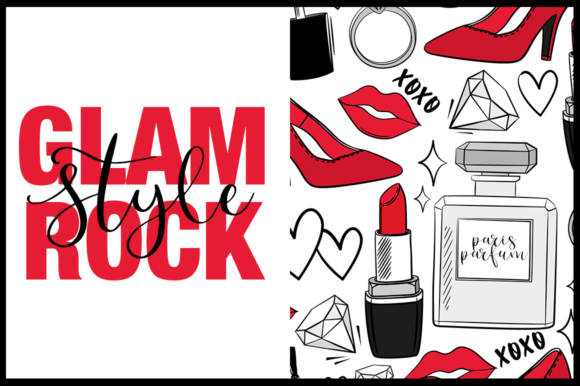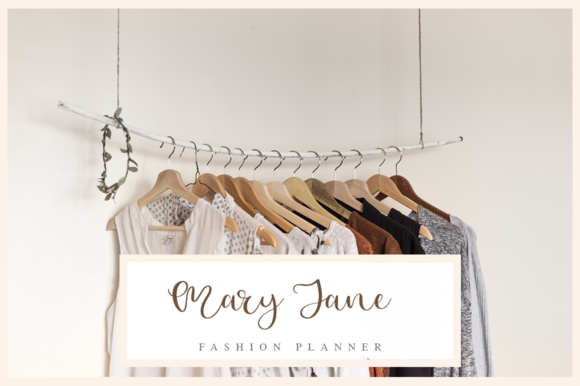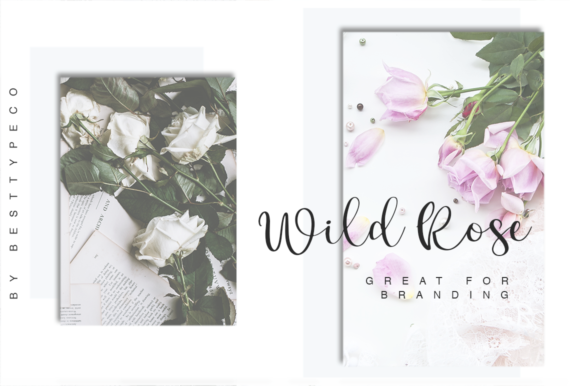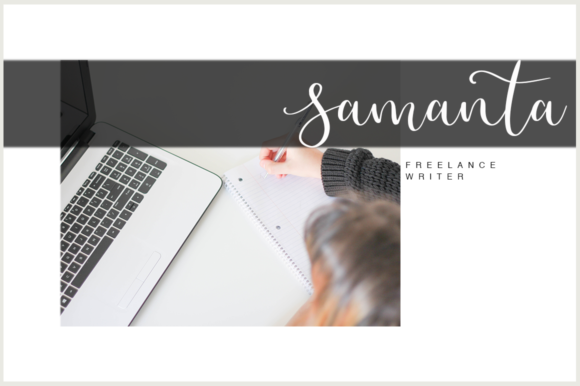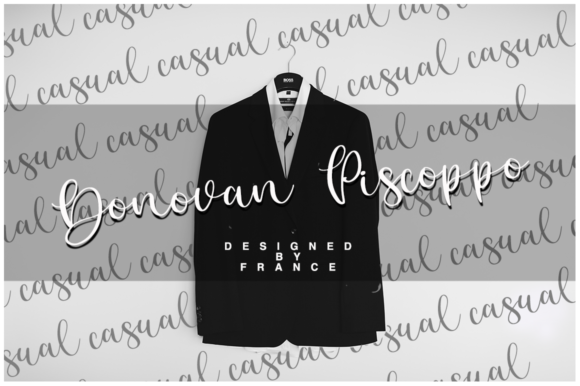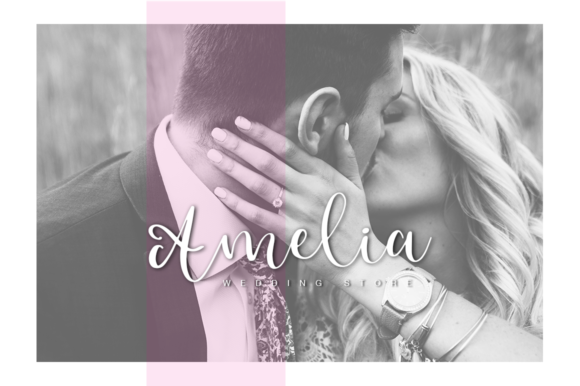
Solited Font
About Solited Font
The Solited is an elegant calligraphy font. It has an feminine handwriting style and can be used for greeting cards, branding materials, business cards, quotes, posters, and more!